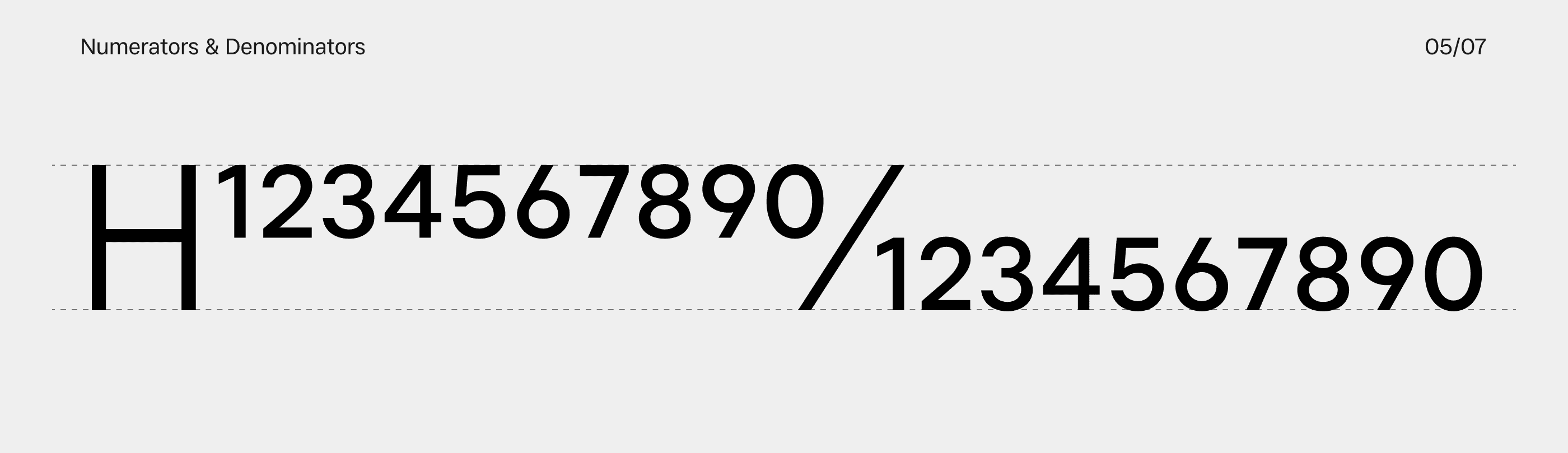
OpenType Figures & Numerals
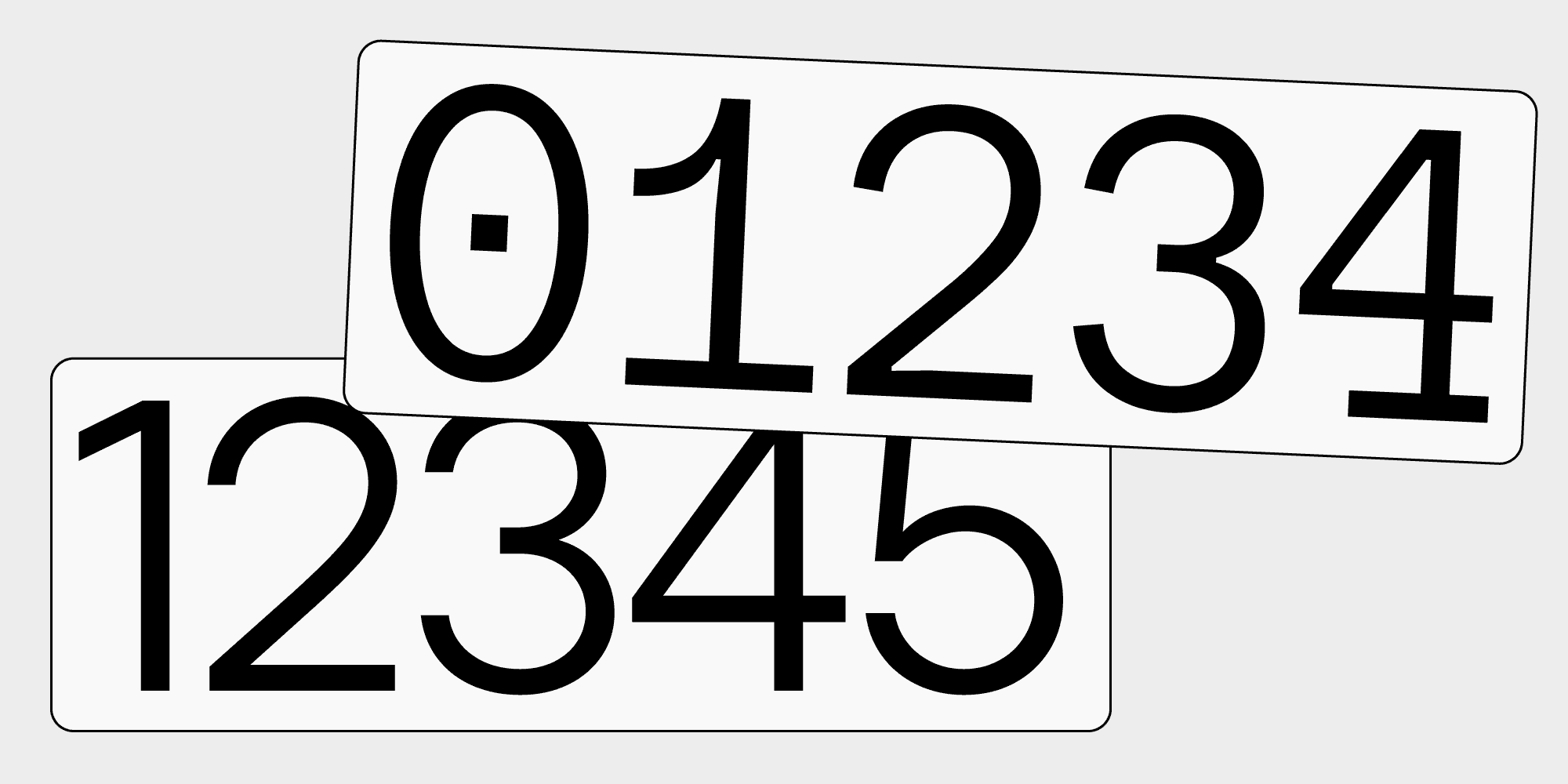
OpenType features are built-in typographic functions that let you change how characters appear without switching to a different typeface. For numerals, these features control figure styles, fractions, superscripts, subscripts, and other details used in design and typography.
This guide focuses on OpenType figures and numerals. It explains how the different figure styles work, where to find them in common design applications, and how to use selected features on the web with CSS. The available options vary by typeface, so check the family’s feature list before choosing a font.
In this guide, we’ll explain the main OpenType figure features and answer these questions:
What are OpenType features?
Why are there multiple sets of figures in a font?
How to use OpenType figures?
How to choose a typeface with OpenType font features?
And, finally, how to access OpenType features?
Lining Figures
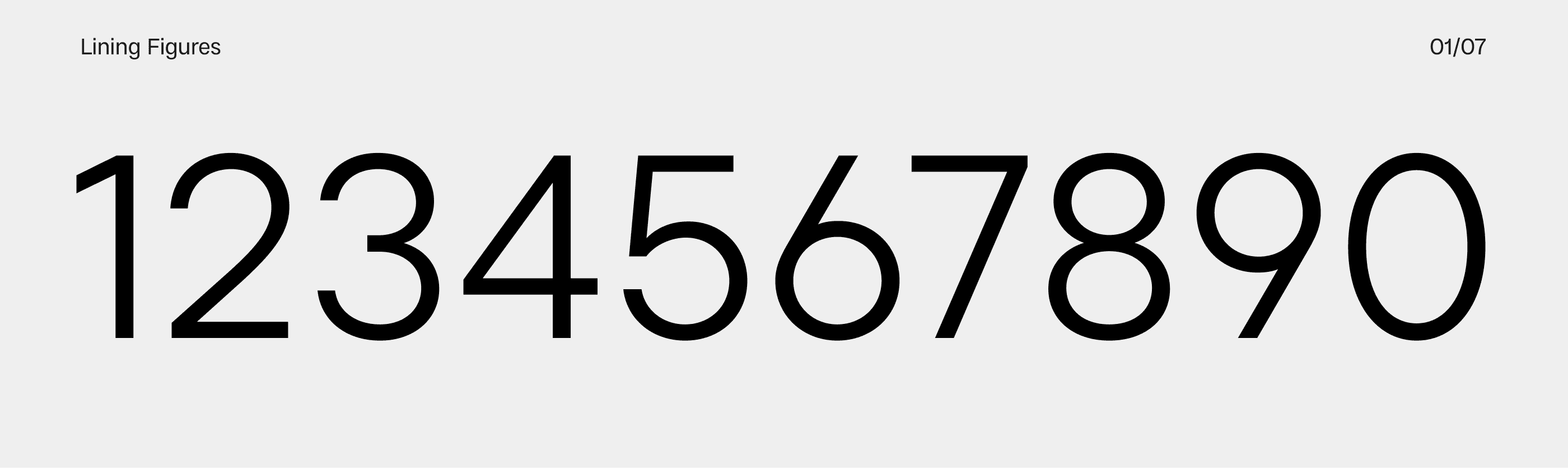
Most people think of lining figures as the default style of numerals. They are designed to reach approximately the height of capital letters, with proportions and stroke weights that complement uppercase text. Lining figures are commonly used for data sets, price tags, headings, interfaces, and street signs.
Lining figures are often a good choice when clarity and visual uniformity are important. They create a consistent vertical alignment with capital letters, although their individual widths may still vary unless the typeface also provides tabular figures. In many typefaces, lining figures are the default numeral style, but this is not guaranteed, so check the font’s OpenType feature list.
The OpenType feature is called Lining Figures and uses the four-character tag lnum. In design applications, it can usually be enabled from the OpenType or Character panel. On the web, use:
You can also enable the feature with the lower-level CSS property:
Use lining figures when numerals need to sit comfortably alongside uppercase letters or create a clear, structured appearance. For columns of numbers that must align vertically, combine them with Tabular Figures using font-variant-numeric: lining-nums tabular-nums;.
Tabular Figures
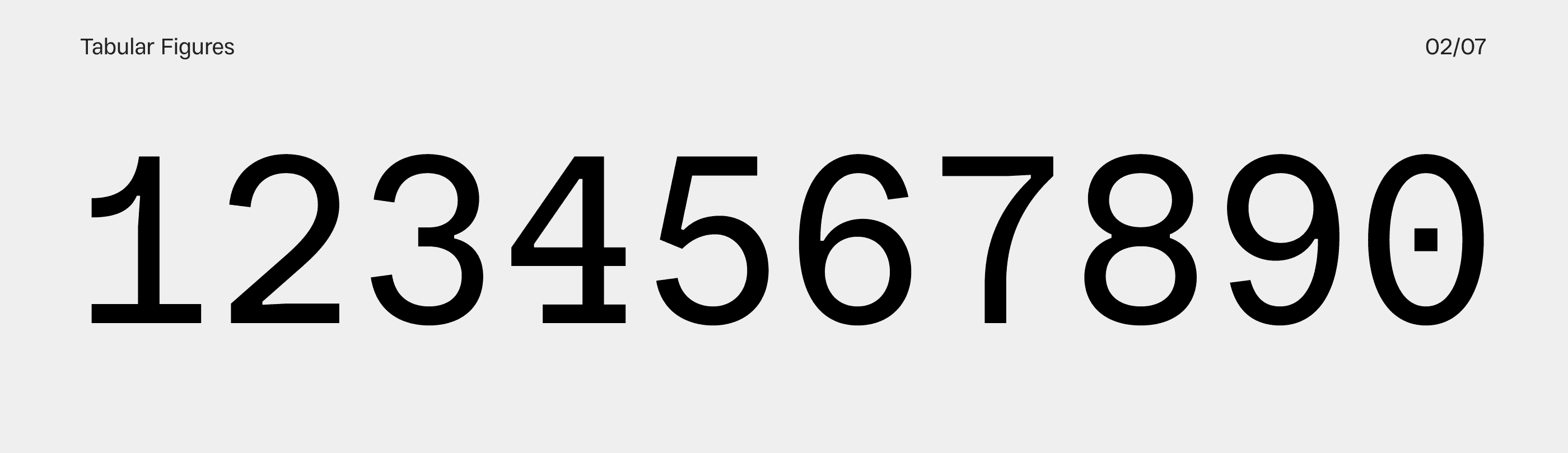
As the name suggests, tabular figures are designed for tables, airport and train schedules, price lists, invoices, financial data, and other layouts that require precise numerical alignment. The main feature of tabular figures is that every numeral occupies the same horizontal width, making it easier to align values vertically in columns.
Tabular figures control the width of the numerals, not their height or vertical style. They can be combined with lining figures or oldstyle figures. For example, lining tabular figures align with capital letters, while oldstyle tabular figures follow the proportions of oldstyle numerals.
In most modern design applications, you can enable tabular figures by selecting the text frame and choosing Tabular Figures in the OpenType panel. The OpenType feature uses the four-character tag tnum. For web designers, use:
You can also enable the feature with the lower-level CSS property:
Some typefaces also include tabular versions of punctuation marks used alongside numerals, such as commas, periods, colons, and parentheses. The Lader type family includes tabular punctuation to help maintain consistent alignment in data-heavy layouts.
Oldstyle Figures
Oldstyle figures are numerals designed to harmonize with lowercase text. Instead of sharing a uniform height, they use varying ascender and descender positions: some figures rise toward the cap height, while others sit near or extend below the baseline. This variation gives paragraphs a more natural rhythm and keeps numerals from competing with the surrounding letters.
Oldstyle figures are especially useful in books, editorial layouts, captions, and other forms of running text. They are commonly associated with serif typefaces, but many sans serif families also include them. The exact shape and height of each numeral varies by typeface, so the figure set should be evaluated within the context of the complete font and the project you're working on.
The OpenType feature is called Oldstyle Figures and uses the four-character tag onum. In Adobe and other design applications, it can usually be enabled from the OpenType or Character panel. On the web, use:
You can also enable the feature with the lower-level CSS property:
Tabular Oldstyle Figures
Tabular oldstyle figures combine two OpenType features: the varying heights of oldstyle numerals and the equal widths of tabular numerals. This combination is useful when a layout needs the visual rhythm of oldstyle figures while numerical values still need to align in columns.
They are well suited to tables, financial documents, schedules, historical publications, and other data-heavy layouts where both typographic character and precise alignment matter. The equal-width design keeps columns organized, while the ascender and descender structure allows the numerals to sit more naturally alongside lowercase text.
Circled figures are most effective when numerals need to stand out as badges, markers, or graphic elements rather than operate only as ordinary text. Since their proportions and spacing vary between typefaces, test them in the final layout before using them in a production design.